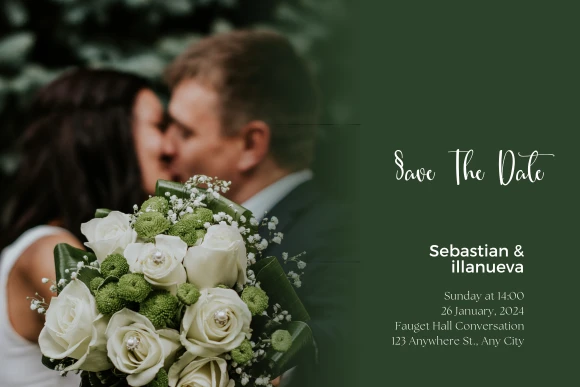
Give your designs a sophisticated, contemporary look with the Martinez Font, a chic handwritten script typeface. Its smooth, flowing strokes and elegant character make it perfect for wedding stationery, luxury branding, social media posts, logos and inspirational quotes. Whether you’re crafting invitations, product packaging or digital content, the Martinez Font brings a refined and fashionable touch to every design.